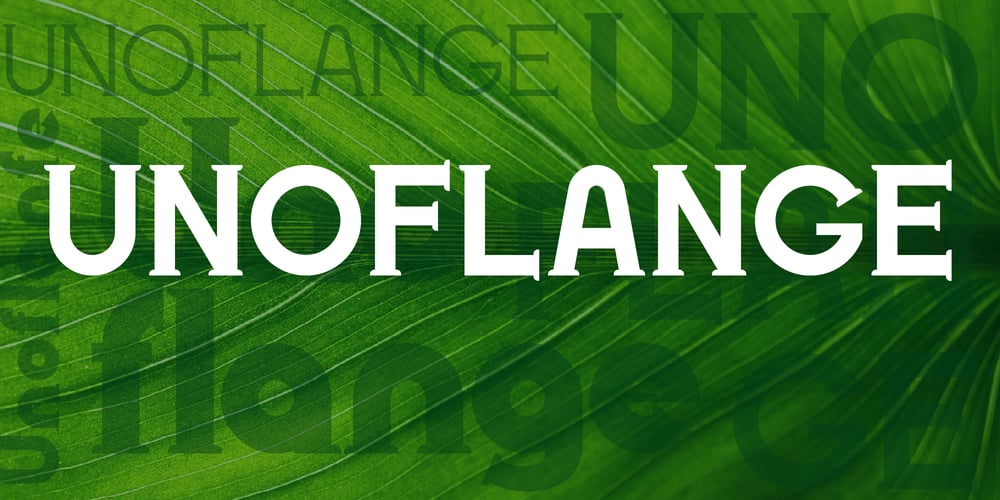
Unoflange Font Family was designed by Volodymyr Berla and published by VladB. Unoflange contains 8 styles and family package options. Unoflange is a modern geometric font with serif, includes upper and lower case characters, Latin, Cyrillic, Latin Eastern Europe, Turkish, Baltic and other.The Unoflange family consists of 8 fonts, divided into 2 subgroups (according to the type of style – St, Rg), and have the 4 types of thickness in each subgroup.Unoglange fonts will be useful in developing a brand, creating posters and other graphic products, and for word processing.